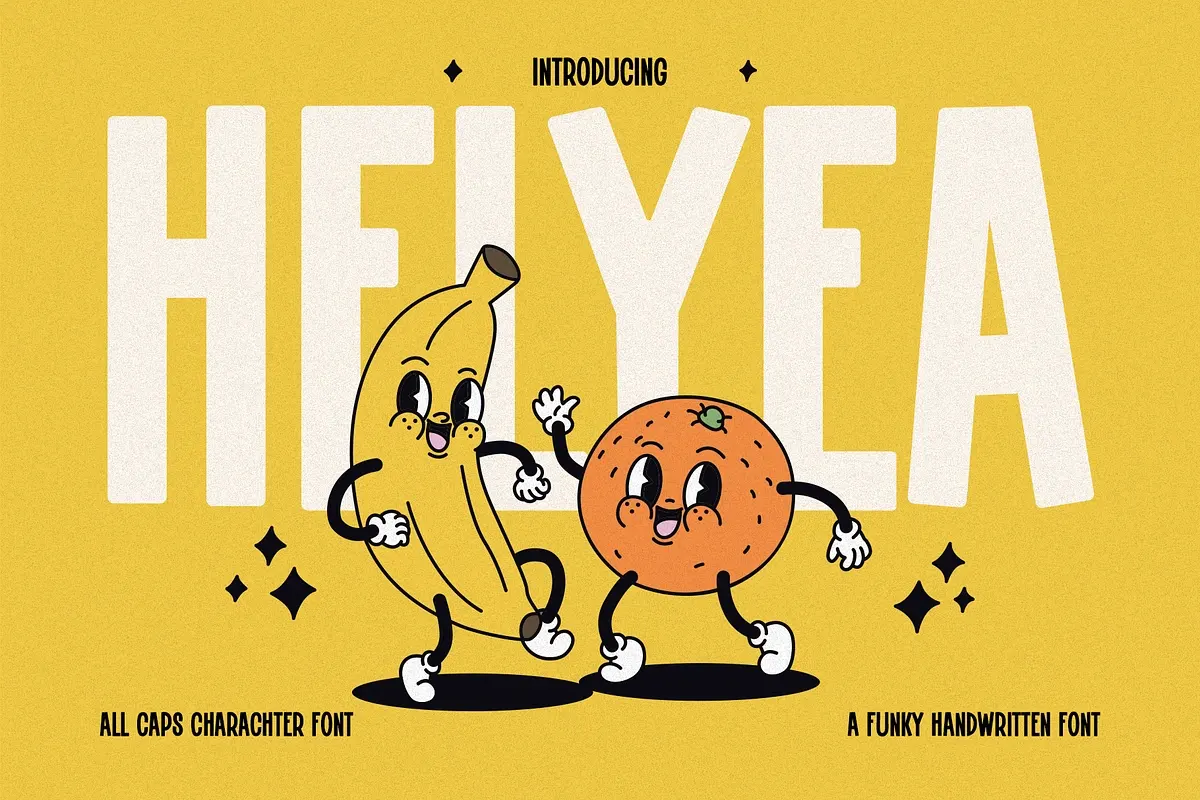
Helyea - Playful Font Free Download
Helyea - Playful Font Free Download is a fun and whimsical typeface designed to bring joy and personality to your creative projects. With its bouncy, rounded letterforms and charming details, this font is perfect for children's designs, greeting cards, party invitations, social media graphics, and anything that needs a playful, lighthearted feel.
Its friendly style makes it a great choice for designs that require a cheerful, approachable look. Whether you're working on branding for a playful brand or creating fun event materials, Helyea adds an energetic touch to your typography.